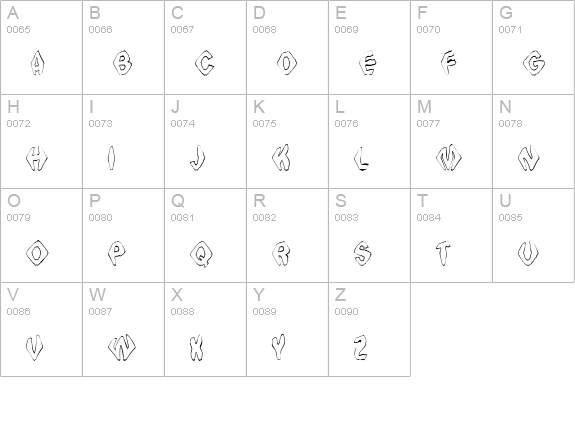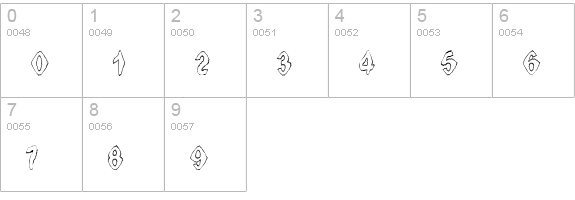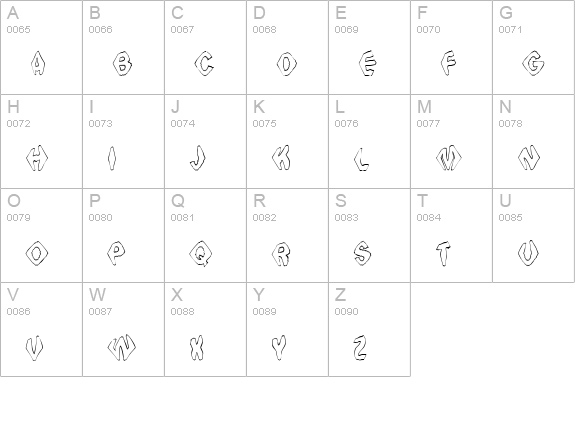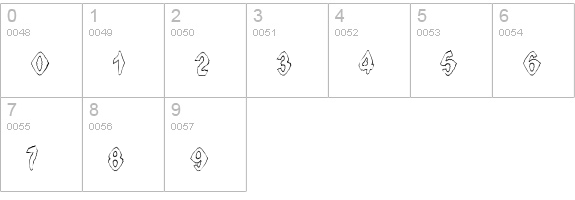
Ingothical Weird Font Details
Introducing Ingothical Weird, a mesmerizing font that transcends the boundaries of conventional typography. With its unique blend of gothic and ethereal elements, this font is sure to captivate and intrigue. Its intricate, twisted letterforms are reminiscent of a cryptic language, weaving together a tapestry of enigmatic beauty. Ingothical Weird is not just a font; it is an experience. Each character has been meticulously crafted to embody an otherworldly essence, exuding a sense of mystique and intrigue. The letterforms dance on the page, creating an atmospheric presence that is both alluring and haunting. But what sets Ingothical Weird apart is not only its mesmerizing design, but also its accessibility. This font is freely available to download at FontsMarket.com, allowing designers, artists, and creatives from all walks of life to unleash their imagination without any financial constraints. Ingothical Weird invites you to explore the possibilities of its unusual aesthetic and incorporate it into your creative projects. Whether you're designing a book cover, creating a logo, or crafting a piece of artwork, Ingothical Weird will add a touch of otherworldly charm and intrigue to your compositions. Its versatility makes it suitable for a wide range of applications, from branding to editorial design, giving your work a distinct and memorable look. With its free availability at FontsMarket.com, Ingothical Weird breaks down the barriers of traditional typography and invites you to unlock a world of boundless creativity. Download this captivating font today and let your imagination run wild. Embrace the weird, embrace the mystical, and let Ingothical Weird guide you on a journey into the unknown.